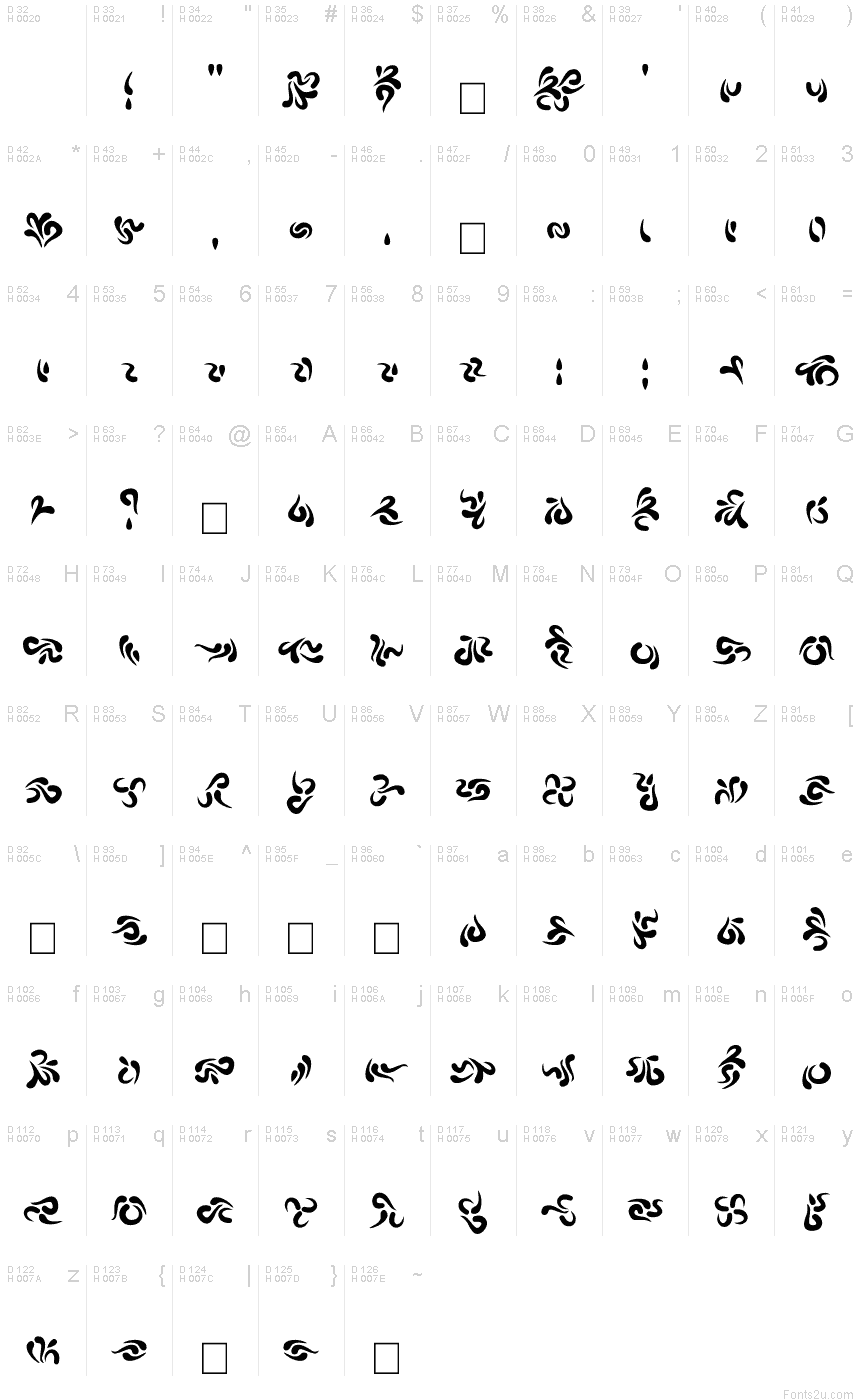
MIB2
Daniel U. Thibault; Burger King Corporation
A freeware alien font based on that used by Burger King for its Men In Black II promotion.
I haven't seen the movie yet as I write this, but I could not find any trace of the glyphs
on the official web site (including the trailers). I'm pretty sure the font was Burger King's
idea. Each of the BK toys comes with a "decoder", so the characters A..Z are "canon".
BK's web site uses the glyphs in its Flash animations; an extra characters appears, which I've mapped to the hyphen. The glyphs vary somewhat in appearance between the BK Flash animations and the toy decoder; in any case I've standardised the sub-glyphs used in the font (albeit with varying rotations) so the glyphs are again a little different.
Glyphs a..z are mirror images of A..Z. The digits, accented characters, punctuation, etc. are my invention.